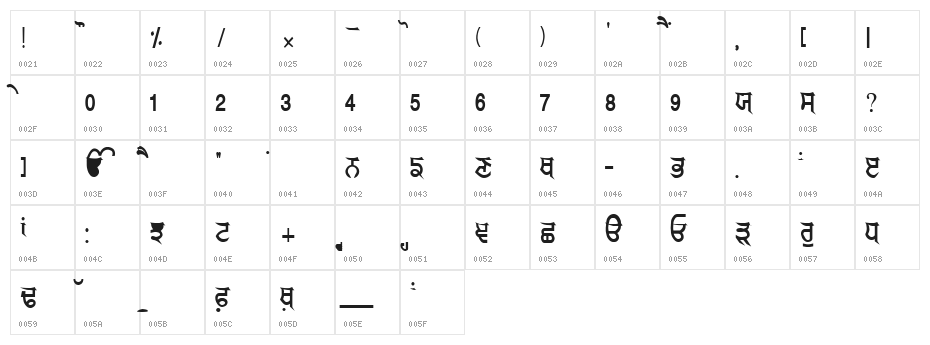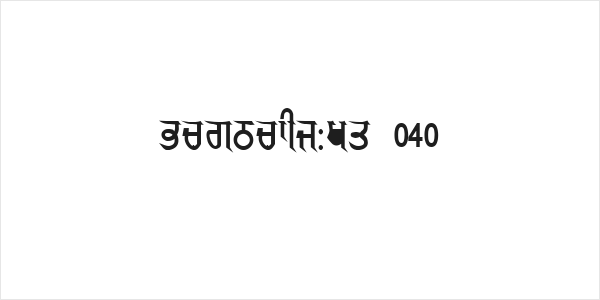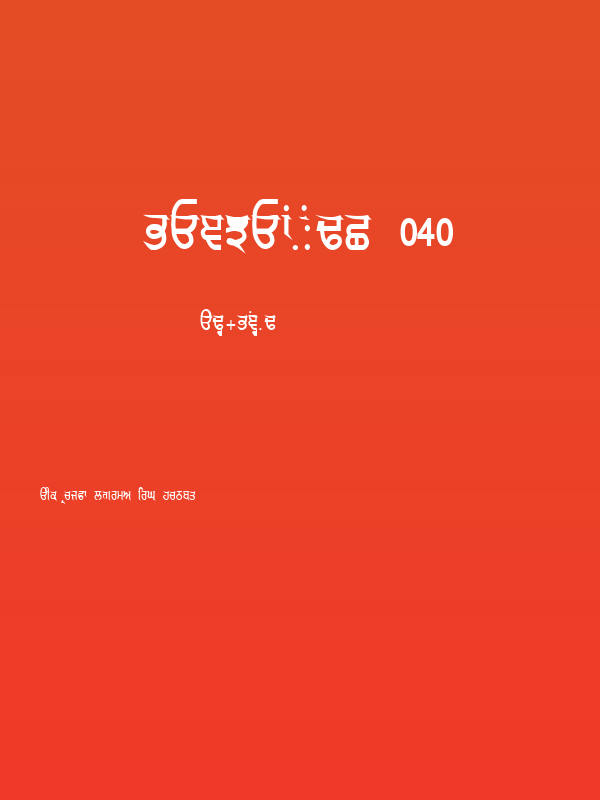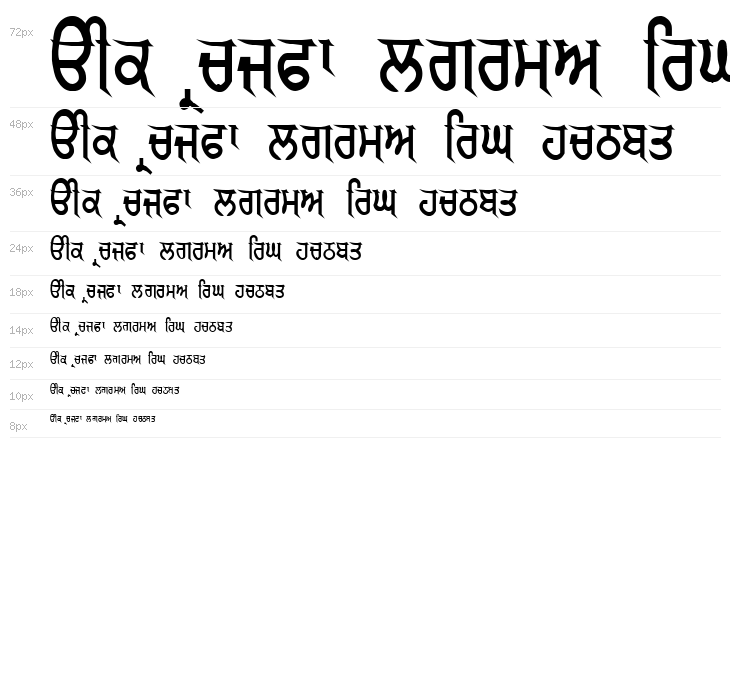
GurmukhiLys 040 Font
GurmukhiLys 040 Description
This font features a bold and striking appearance with a traditional Gurmukhi script style. The characters are well-defined with sharp edges and a consistent stroke width, giving it a strong presence. The numerals are clear and distinct, matching the overall boldness of the script. Special characters are integrated seamlessly, maintaining the font's cohesive look. The design is both functional and aesthetically pleasing, suitable for various applications that require a touch of cultural authenticity and readability.
| Overall Style | Traditional |
| Use Case | Headlines, Signage, Cultural publications |
| Proposed Projects | Ideal for cultural publications, educational materials, signage, and branding that require a traditional Gurmukhi script. |